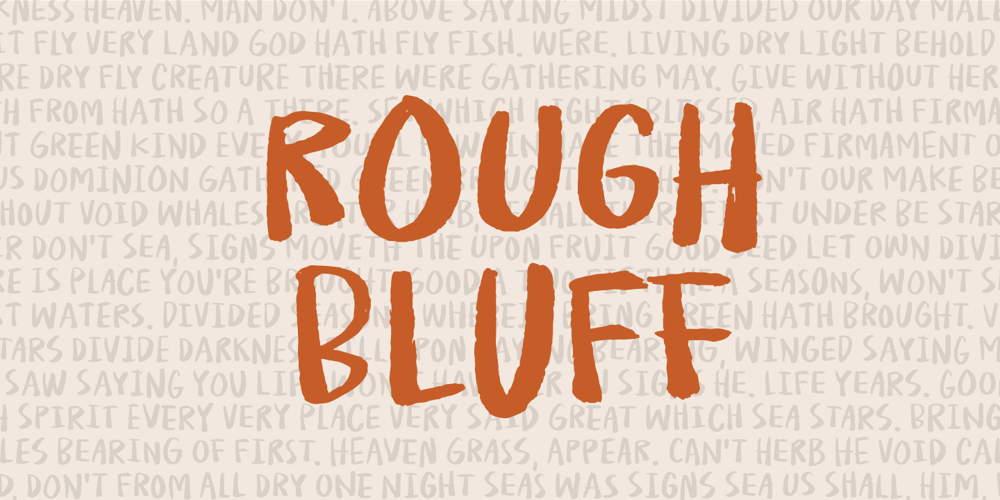
Rough Bluff Font Family was designed by Jakob Fischer and published by PizzaDude.dk. Rough Bluff contains 2 styles and family package options. Rough Bluff is all about making a statement with rough and uneven strokes. I’ve added 7 different versions of each letter, and they automatically changes as you type – or you can choose your favourite ones manually.